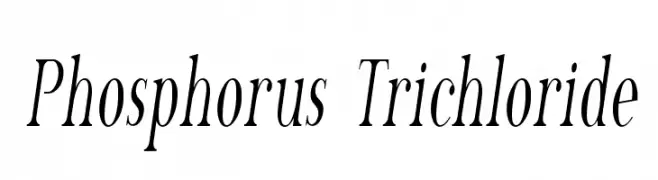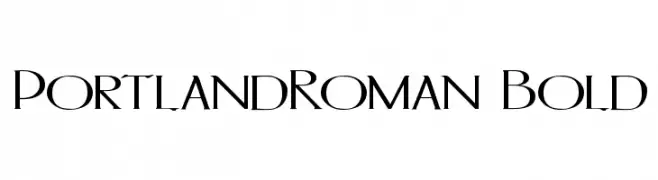
( Fonts by Nick Curtis - www.nicksfonts.com )
A classic serif font with bold, bracketed serifs and a strong, traditional presence.
( Paul Lloyd Fonts )
A bold, elegant serif font with a modern twist and sharp, clean lines.
( Fonts by dartcanada.tripod.com - Darren Rigby )
A modern, sleek italic font with smooth, flowing lines.
( Fonts by Nick Curtis - www.nicksfonts.com )
A dynamic, slanted font with bold, clean lines and a modern aesthetic.
A classic, high-contrast serif font with elegant italics.
( Paul Lloyd Fonts )
A bold, classic serif font with elegant and authoritative design.
( Fonts by Grafito Design - dibujosenlinea.ideasintegrales.net )
A bold, angular font with a chiseled, geometric style.